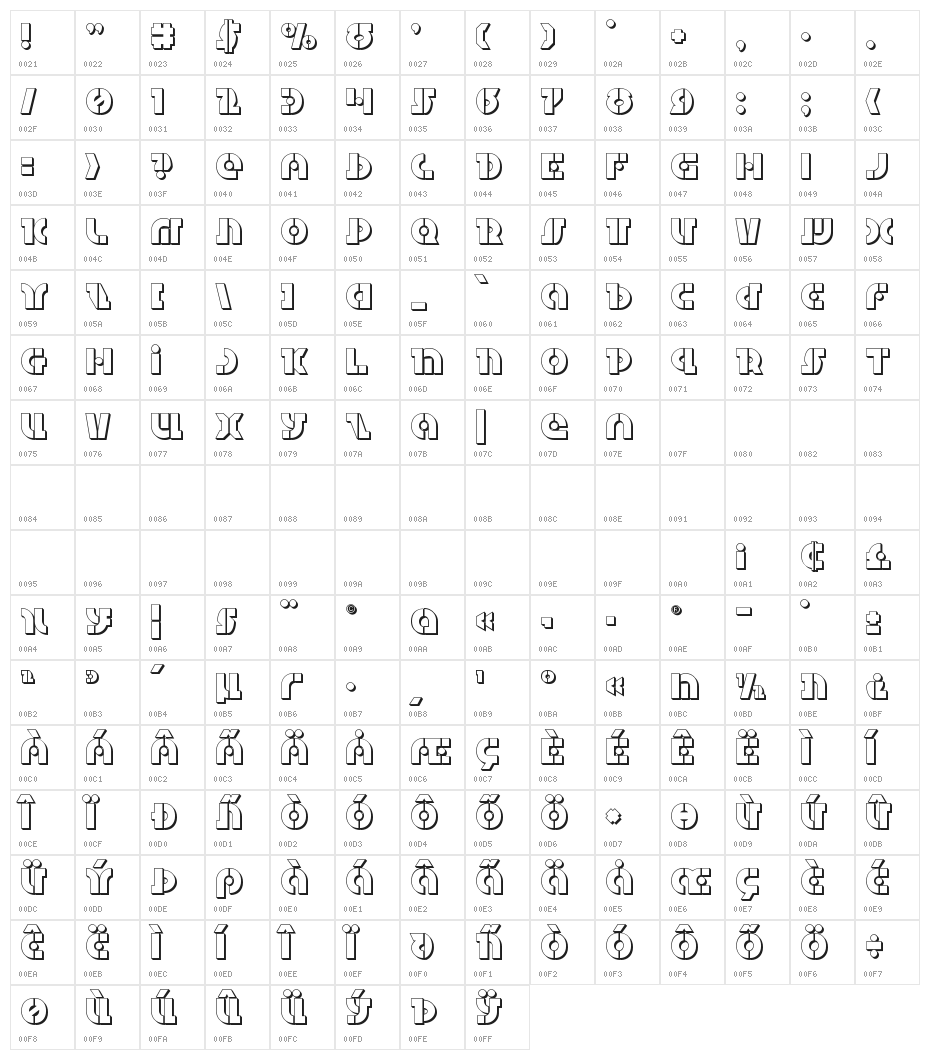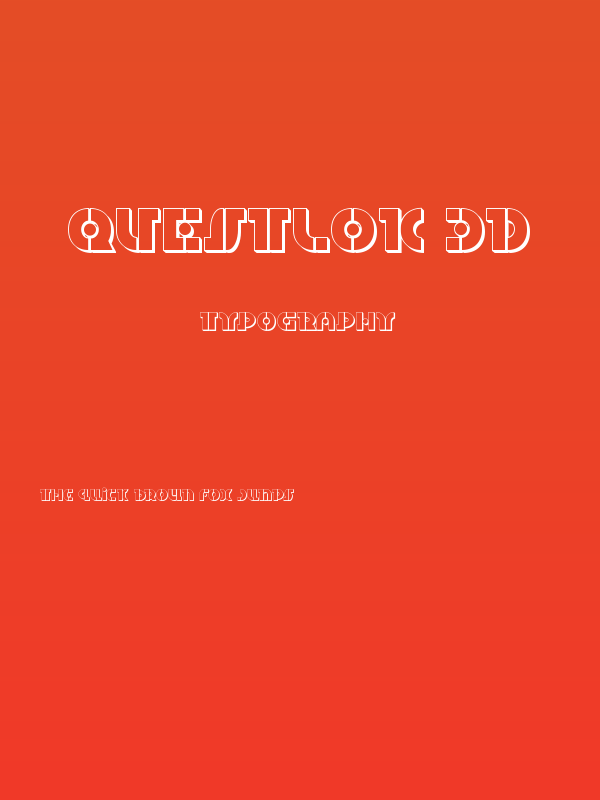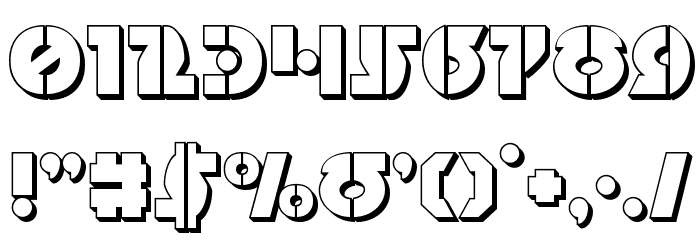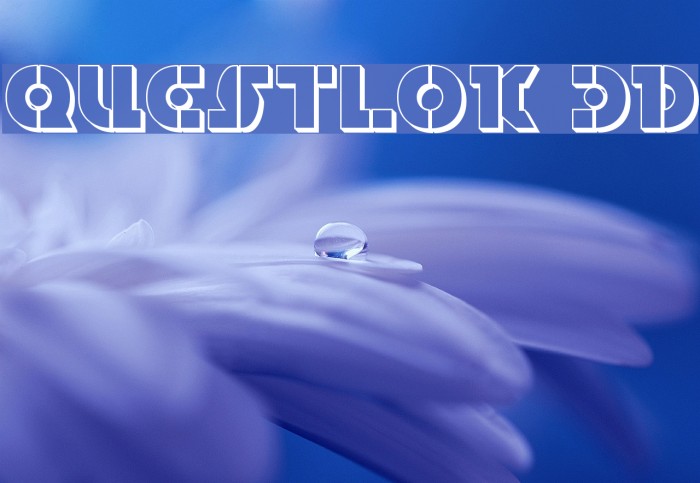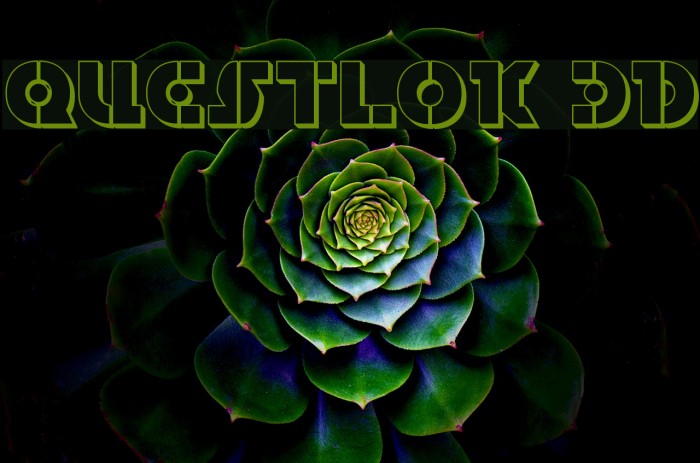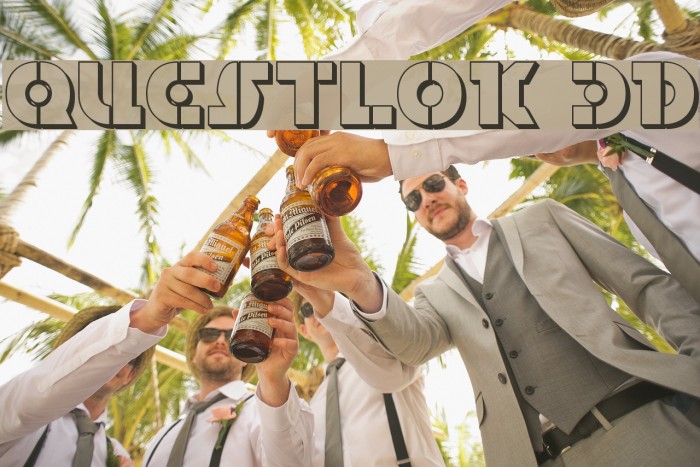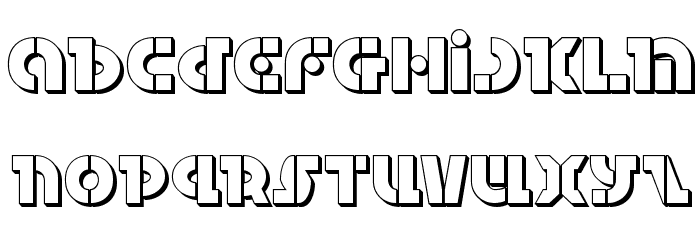
Questlok 3D Font
Questlok 3D Description
This font features a bold, geometric design with a three-dimensional effect, giving each character a distinct, block-like appearance. The letters are constructed with thick lines and sharp angles, creating a futuristic and industrial feel. The uppercase and lowercase letters maintain a consistent style, with the lowercase being slightly smaller but equally bold. Numbers and special characters follow the same design principles, ensuring uniformity across all glyphs. The font's unique 3D illusion is achieved through strategic use of shading and outlines, making it stand out in any design project.
QUESTLOK-3D UPPERCASE
QUESTLOK-3D LOWERCASE
QUESTLOK-3D OTHER CHARS